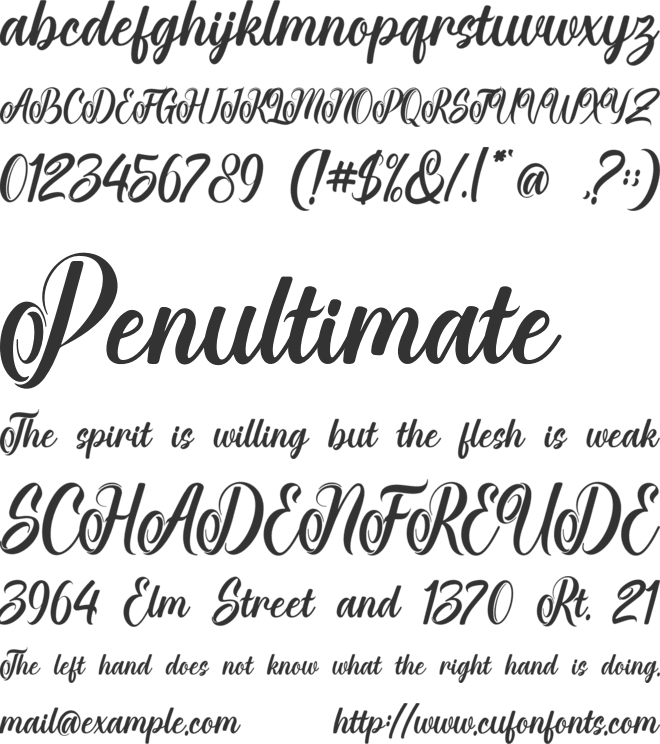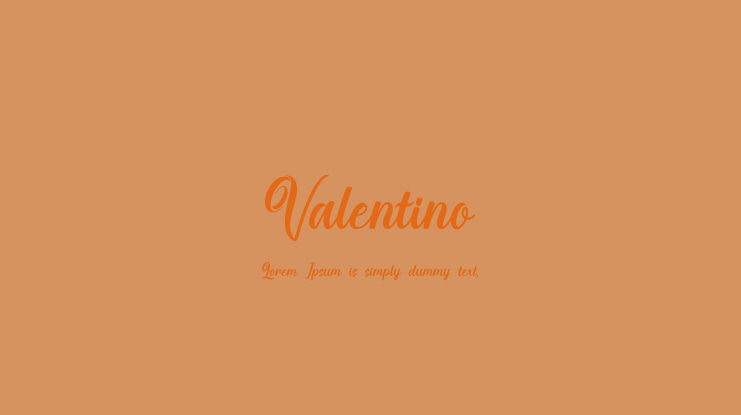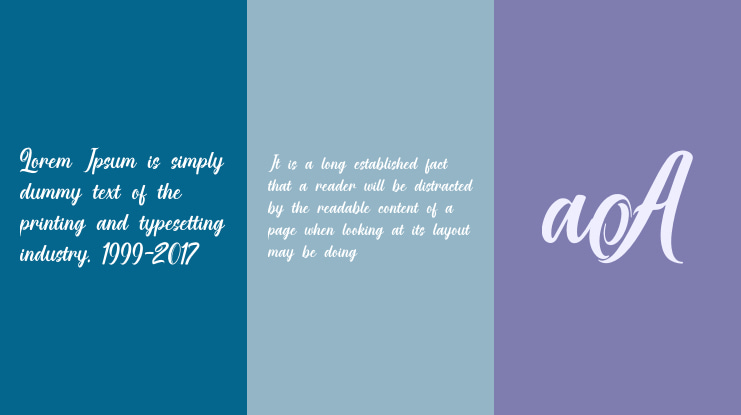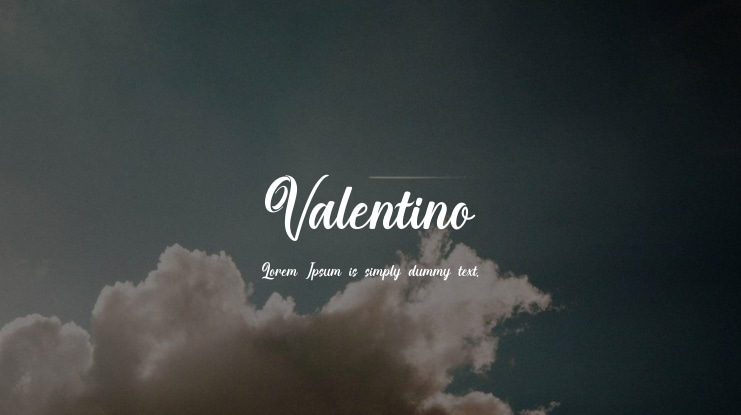
Hello ladies and gentlemen, I am Valentino Font which was born as a modern typeface script font. This Valentino font has been kerned very neatly and has swashes, adding a bit of a retro touch that is very easy to use for both PC and MAC.
Here I give a little way to use swashes in the Valentino font:
Use multiple underscores __ to create swashes of different lengths.
Example: Valentino___
It should be noted that the SWASH in the VALENTINO font can be used when the standard ligature feature is active in your design software.
And of course, this Valentino font is it can be used for many projects that you are working on such as product branding, logotypes, business cards, letterheads, cafe menu tables, shop names, company names, wedding invitation cards, packaging products for your business, clothing branding, crafts, your website or social media and of course, there is much more creativity that you can use from this Valentino font.